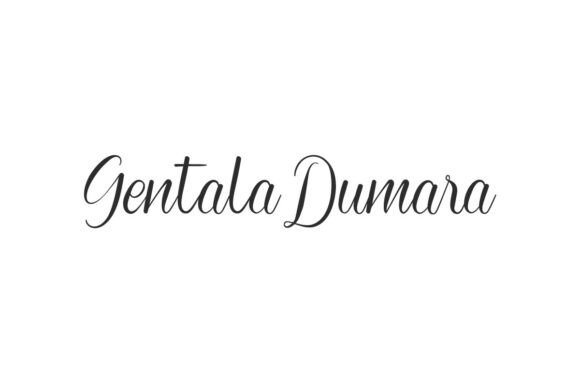
Gentaladumara Font: A Timeless Classic Script for Elegant Designs
In the world of typography, fonts play a crucial role in conveying the tone and personality of a brand or design. Among the numerous font styles available, script fonts have always been a popular choice for creating elegant and charming designs. One such font that has gained significant attention in recent times is the Gentaladumara Font. In this article, we’ll explore the features, benefits, and uses of this beautiful classic script font.
What is Gentaladumara Font?
Gentala Dumara Font is a stunning classic script with a relaxed and informal calligraphy typeface. It boasts a large collection of ligatures that support typography performance, allowing designers to produce creative designs with ease. This font is perfect for a wide range of applications, including brand logos, brochures, card designs, covers, headers, label products, quotes, screen printing, stationery, stickers, template mockups, titles, watermarks, websites, wedding invitations, and wrap designs.
Benefits of Using Gentaladumara Font
This elegant font offers several benefits that make it an ideal choice for designers and brands. Some of the key advantages of using Gentaladumara Font include:
- Elegant and Charming Designs: Gentaladumara Font is perfect for creating sophisticated and charming designs that exude elegance and refinement.
- Versatility: This font is suitable for a wide range of applications, from art quotes and boutiques to cosmetic brands, fashion, florists, graphic design, home decor, printing and publishing, promotions and advertising, special events, wedding planners, and more.
Uses of Gentaladumara Font
Gentaladumara Font is a versatile font that can be used in a variety of design projects. Some of the most popular uses of this font include:
- Brand Logos: Create a lasting impression with a custom brand logo designed using Gentaladumara Font.
- Wedding Invitations: Add a touch of elegance to your wedding invitations with this beautiful script font.
- Brochures and Flyers: Use Gentaladumara Font to create stunning brochures and flyers that showcase your products or services.
- Social Media Graphics: Create engaging social media graphics, such as quote graphics, using this font.
- Packaging Design: Use Gentaladumara Font to create eye-catching packaging designs that stand out on store shelves.
Design Tips for Using Gentaladumara Font
To get the most out of Gentaladumara Font, here are some design tips to keep in mind:
- Pair with Simple Fonts: Pair Gentaladumara Font with simple fonts to create a striking contrast and add visual interest to your design.
- Experiment with Ligatures: Take advantage of the font’s ligatures to add a touch of elegance and sophistication to your design.
- Use in Combination with Images: Use Gentaladumara Font in combination with images to create stunning visual effects and add depth to your design.
In conclusion, Gentaladumara Font is a beautiful classic script font that offers a wide range of design possibilities. Its elegant and charming designs, versatility, and ease of use make it an ideal choice for designers and brands. Whether you’re looking to create a brand logo, wedding invitation, or social media graphic, this font is sure to impress. So, why not give Gentaladumara Font a try and experience the power of elegant typography for yourself?